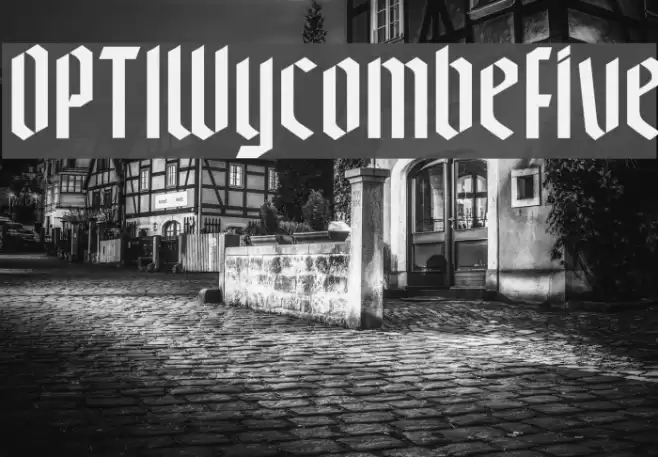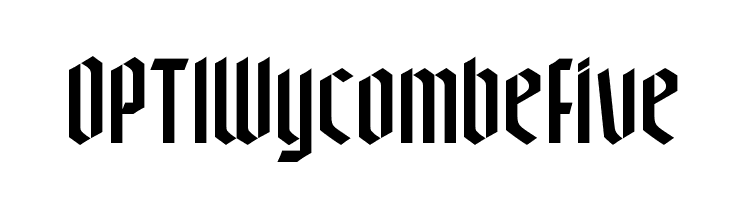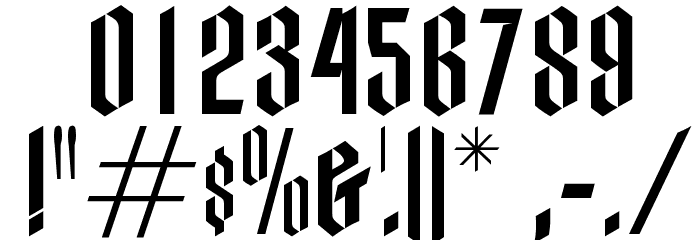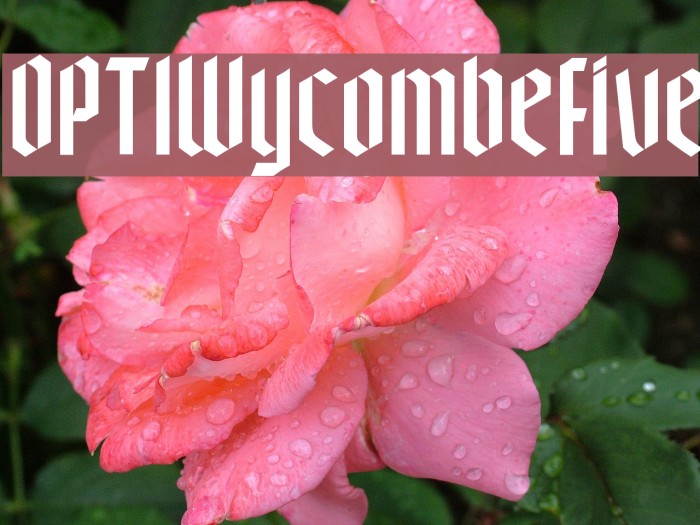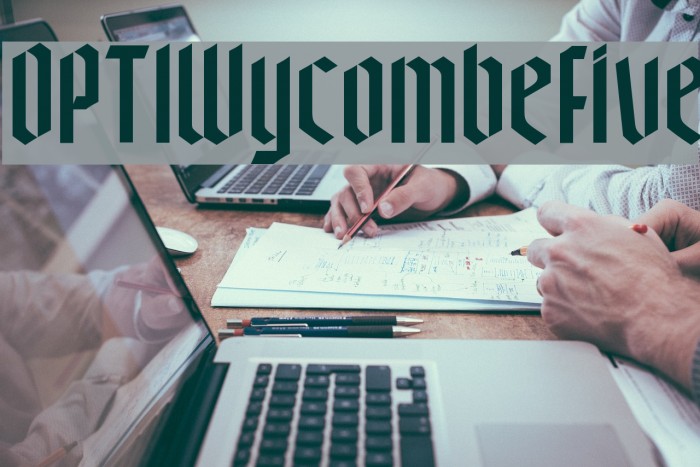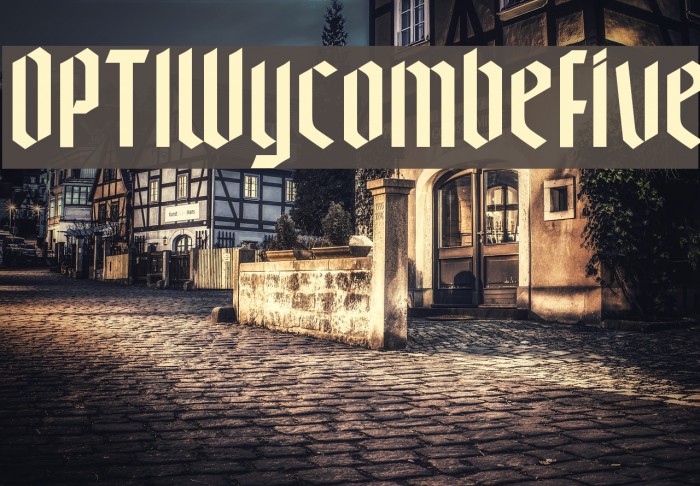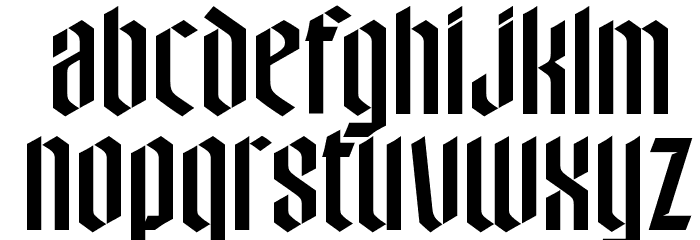
OPTIWycombeFive Font
OPTIWycombeFive Description
This font features a bold, angular design with a strong geometric influence. The characters are sharply defined with a distinct, modern edge, creating a striking visual impact. The uppercase letters are tall and narrow, while the lowercase letters maintain a similar angular style, providing a cohesive look. Numbers and special characters follow the same design principles, ensuring consistency across all elements. The font's unique style makes it ideal for projects that require a bold, attention-grabbing typeface.
A bold, angular font with a modern geometric style from Uncategorized fonts.
- Character Spacing: Tight